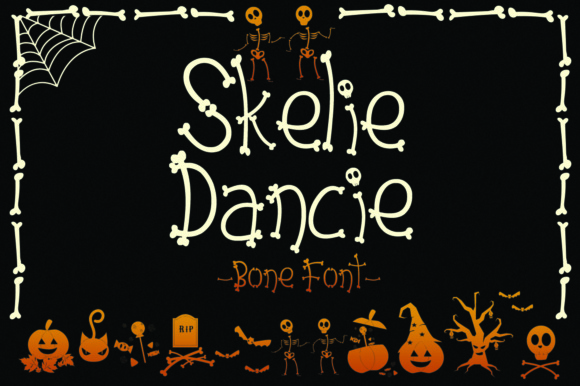
Step into the enchanting realm of creativity, where letters dance with the spirit of Halloween, presenting Skelie Dancie Font, a masterpiece that will cast a spell on your designs. Immerse yourself in a world of spooky elegance as this display font captivates your senses, designed exclusively by the talented dmletter31.
Unleash your inner artist and transform your projects into spellbinding creations with Skelie Dancie's captivating charm. A symphony of spirited glyphs awaits you, each infused with the essence of Halloween's mystical allure. Cast your words in bone-chilling beauty, whether crafting invitations for haunting parties, designing spine-tingling logos, or conjuring spooky graphics.
With Skelie Dancie, the ordinary becomes extraordinary. Its eerie elegance breathes life into crafting projects, making your creations stand out from the mundane. Enchant your designs with unique Halloween-themed clipart, seamlessly integrated into the numeric keys 0-9. Mix and match these haunting visuals to create captivating compositions that will send chills down the spines of your audience.
Embrace the magic of Skelie Dancie and unlock a world of design possibilities. Its versatility extends beyond the realm of Halloween, captivating audiences in horror-themed projects, chilling social media posts, and spine-tingling marketing campaigns. Unleash your creativity and weave a web of captivating designs that leave an unforgettable impact.